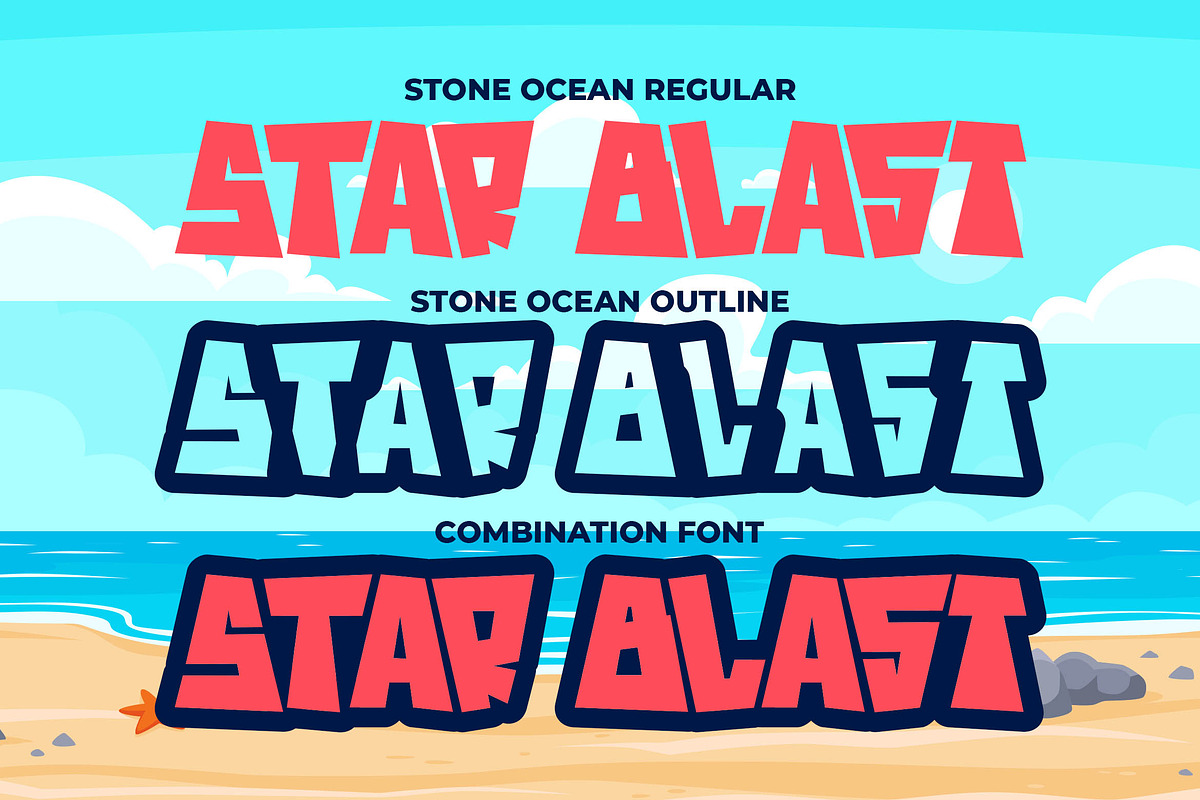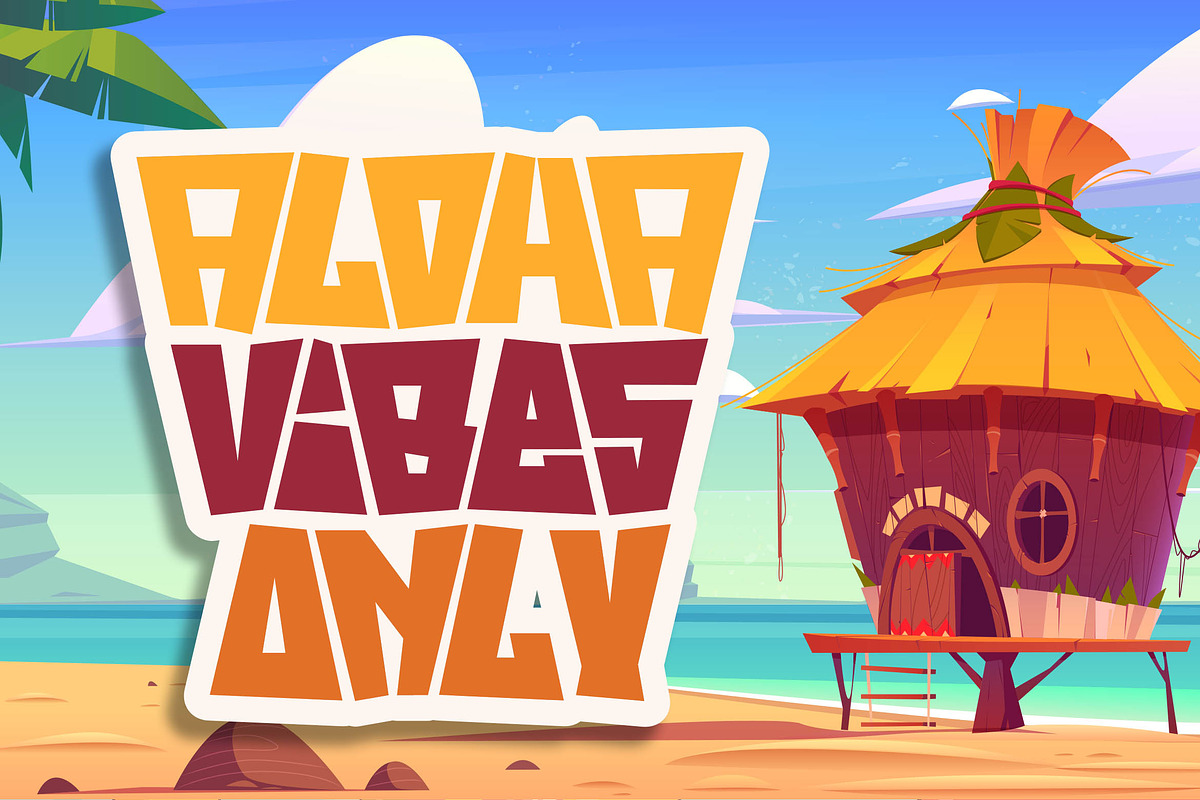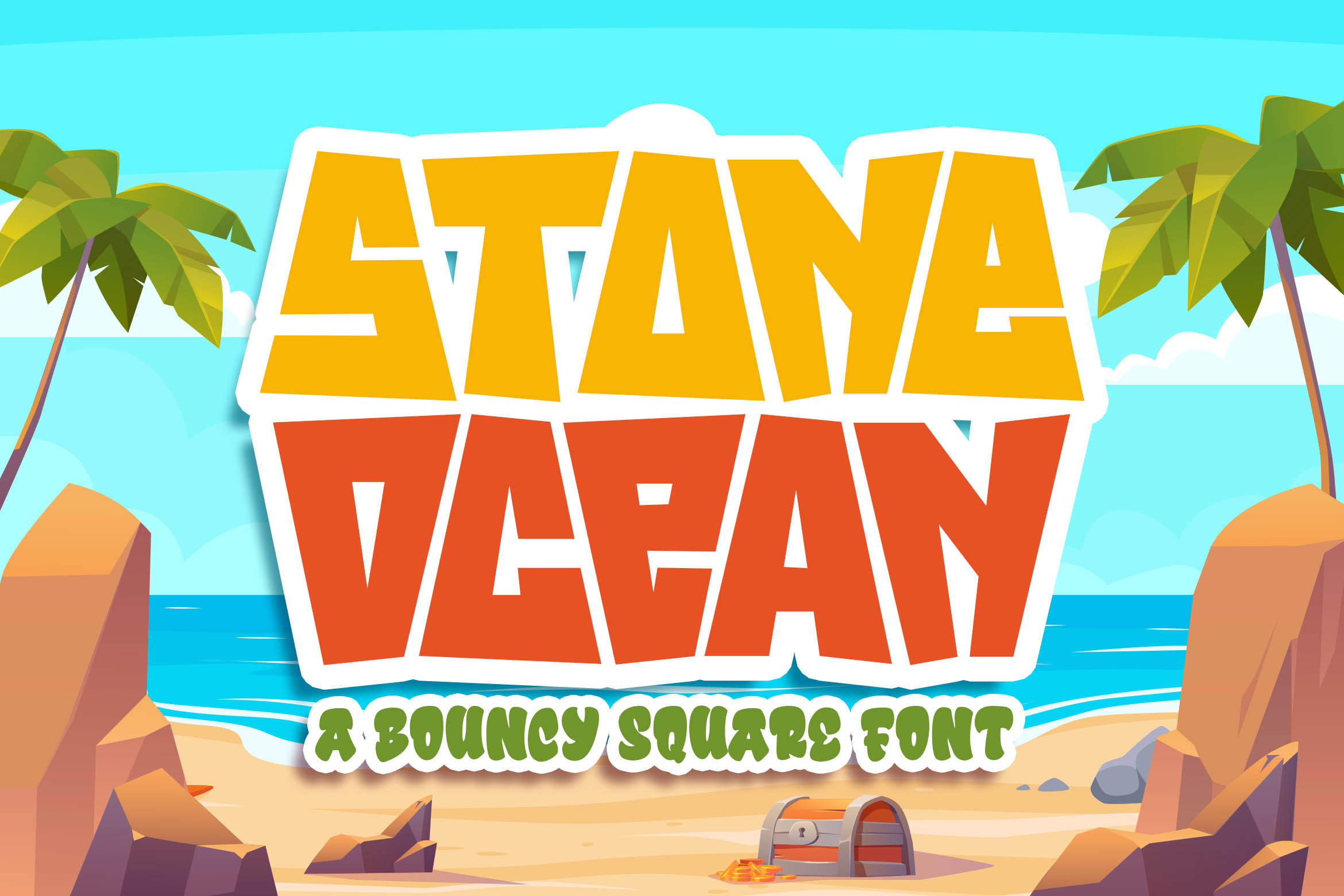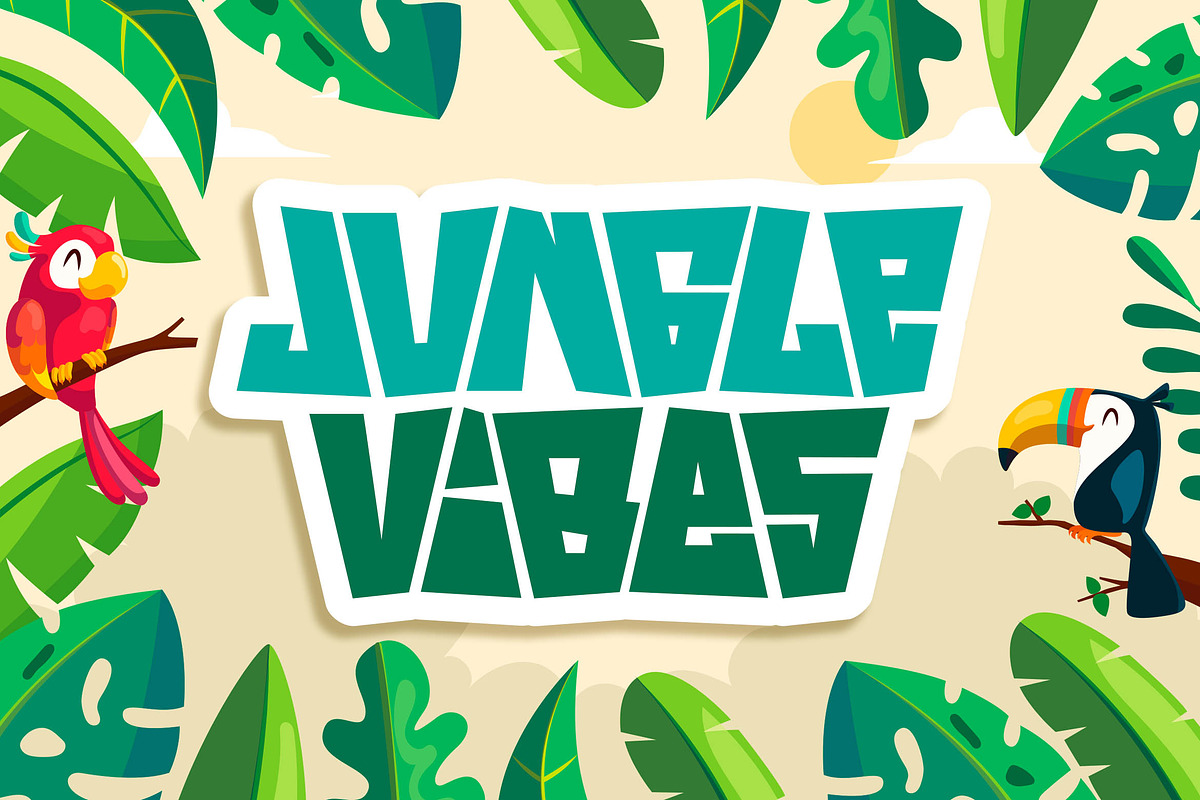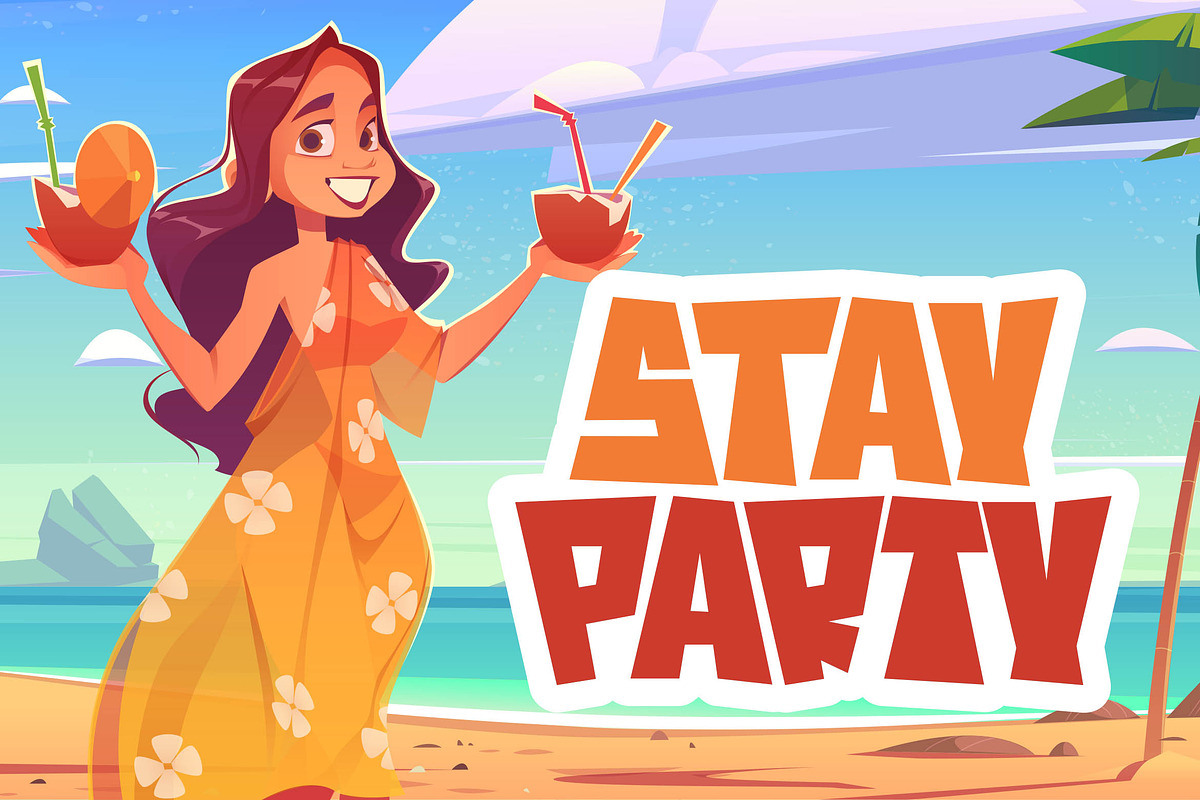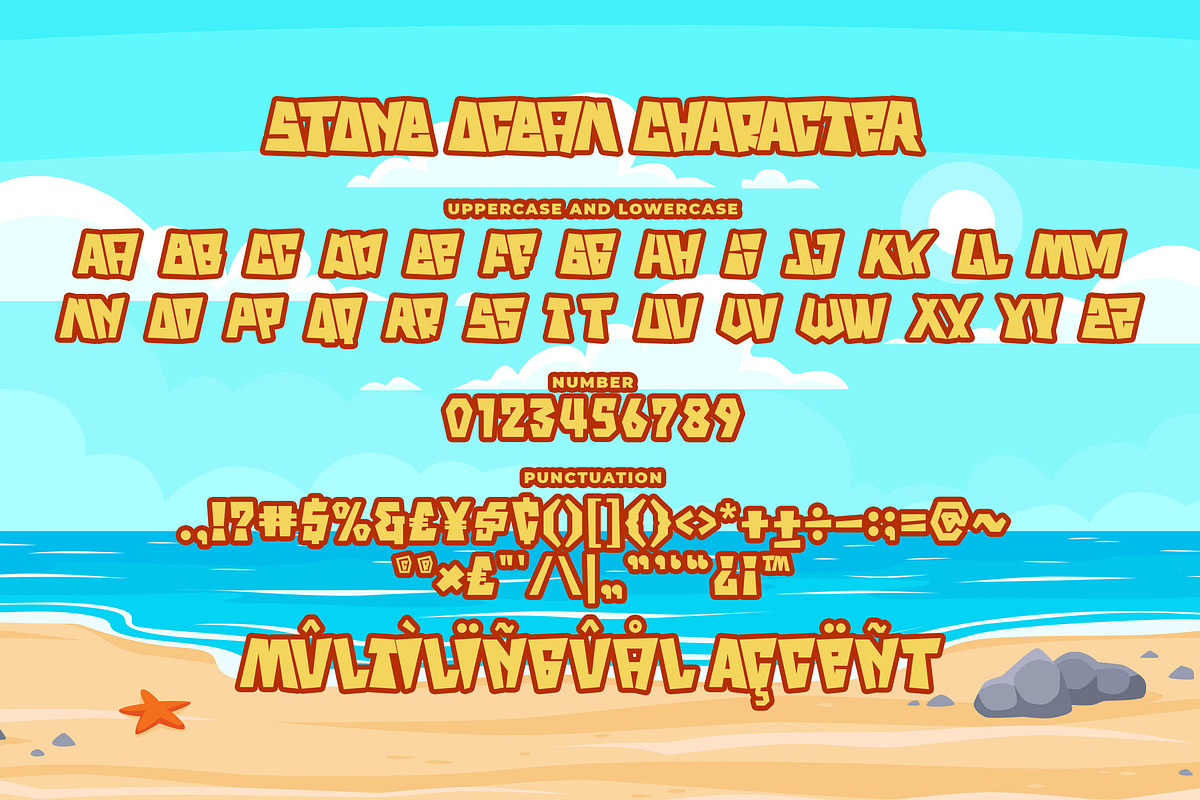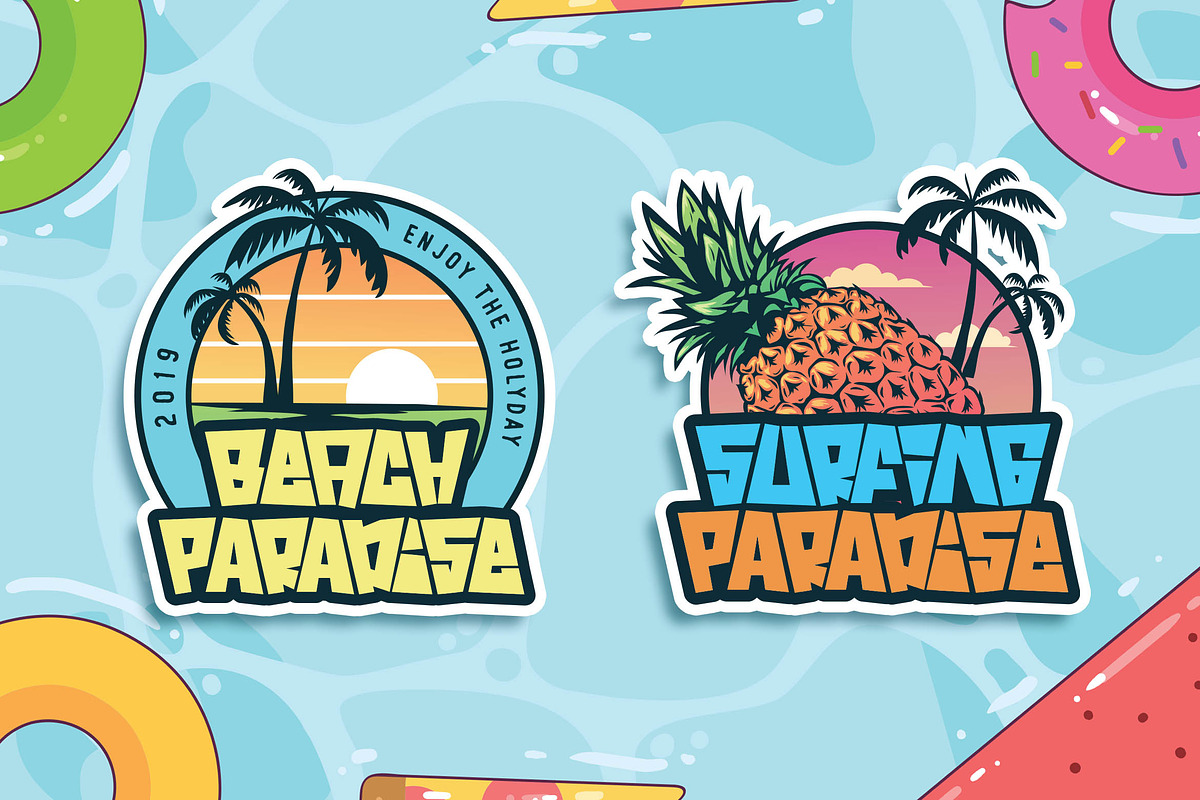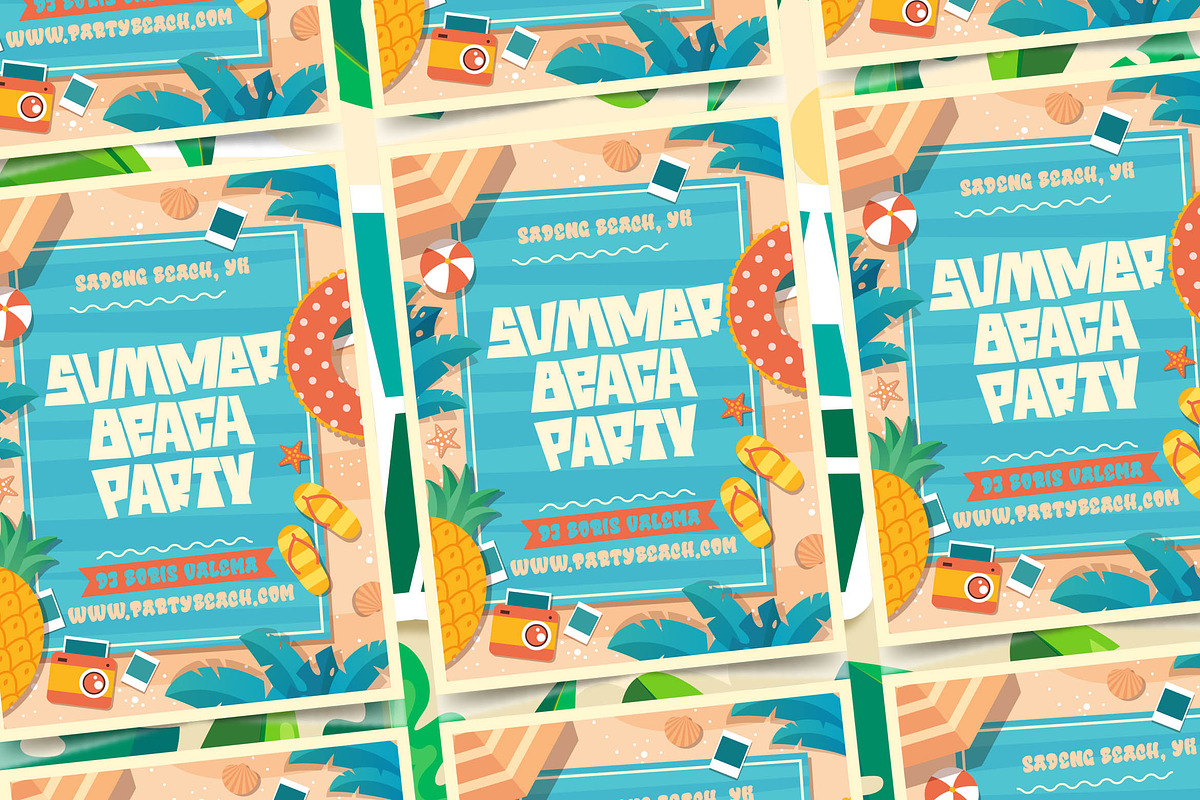
Stone Ocean a Bouncy Square Font
Introducing of our new product the name is Stone Ocean a Bouncy Square Font, Stone Ocean inspired by Playful style with a fun theme very good for tropical, kids and playful theme design.